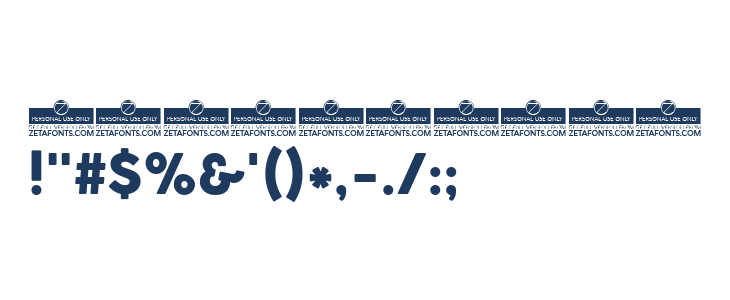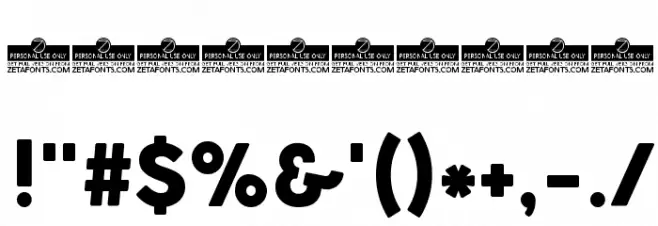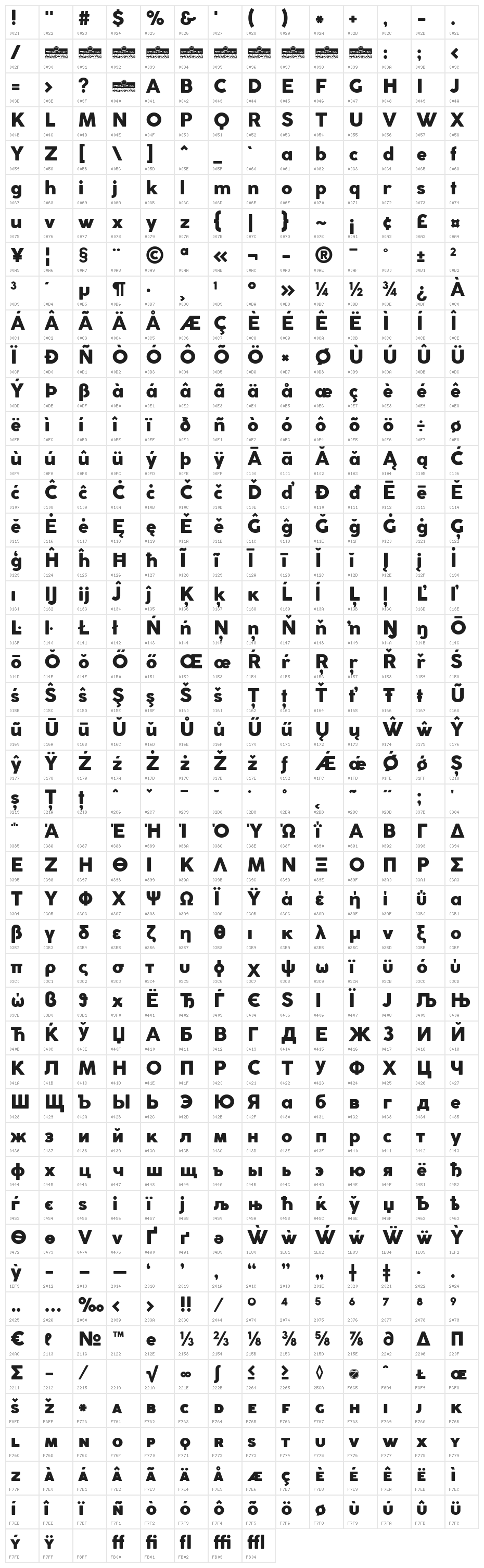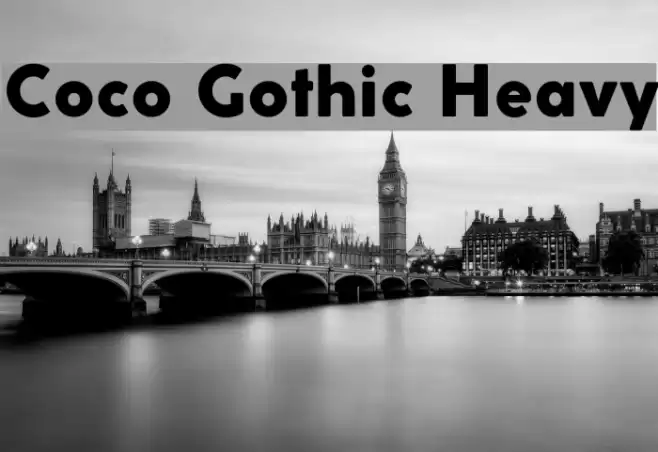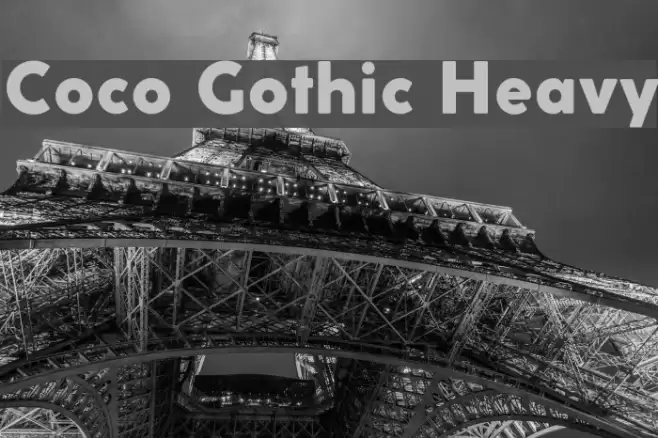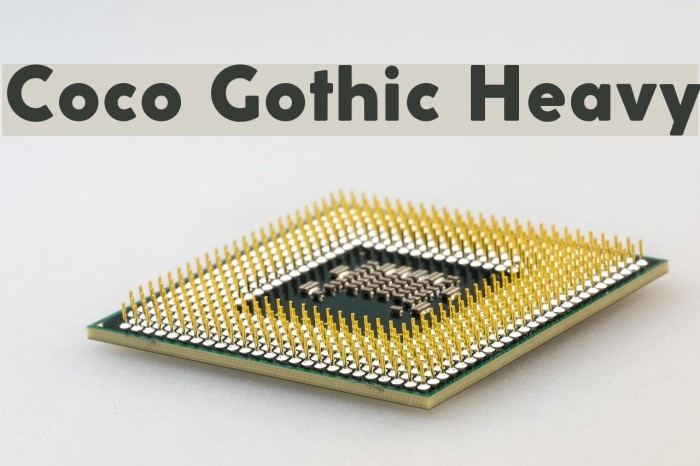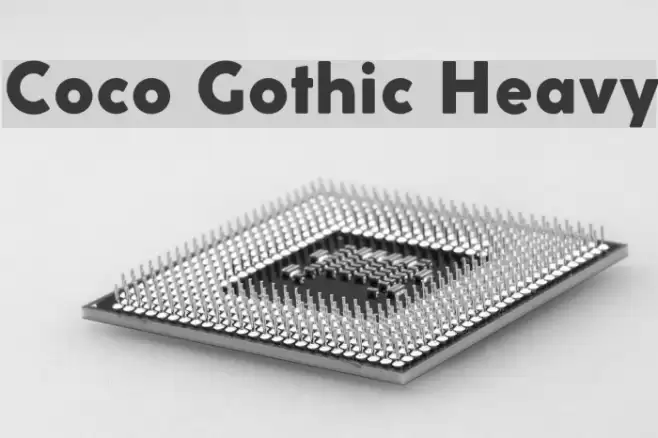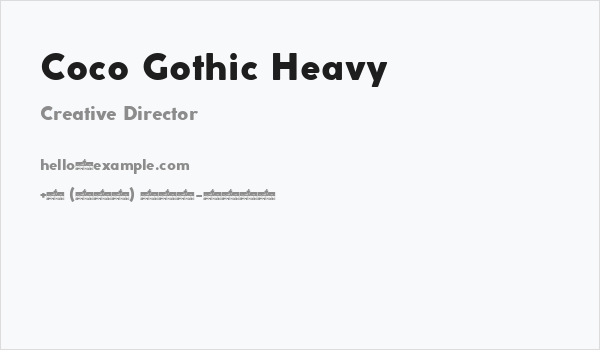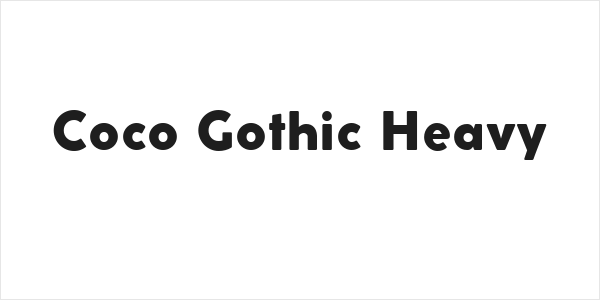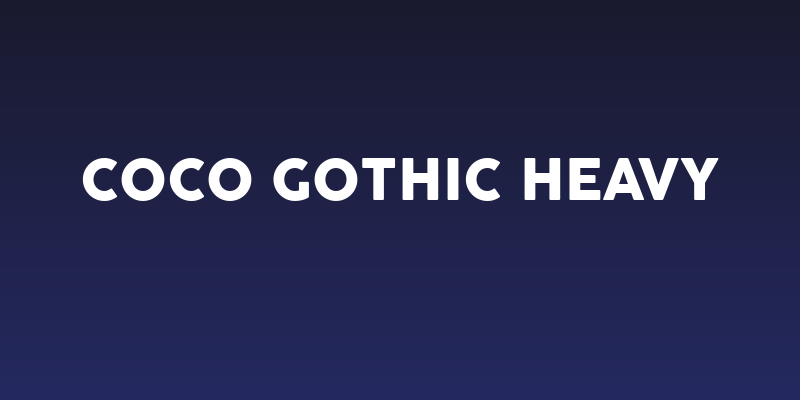
Coco Gothic Heavy Font
Coco Gothic Heavy Description
This font features a bold and modern sans-serif style with clean, geometric lines. The uppercase and lowercase letters are well-proportioned, offering a sense of balance and uniformity. The characters are rounded and smooth, contributing to a friendly and approachable appearance. The numerals and special characters maintain the same boldness, ensuring consistency across all text elements. Its simplicity and clarity make it highly legible, even at smaller sizes. The overall design is versatile, suitable for a wide range of applications from digital to print media.
| Proposed Projects | Ideal for branding, advertising, headlines, posters, and digital media. |